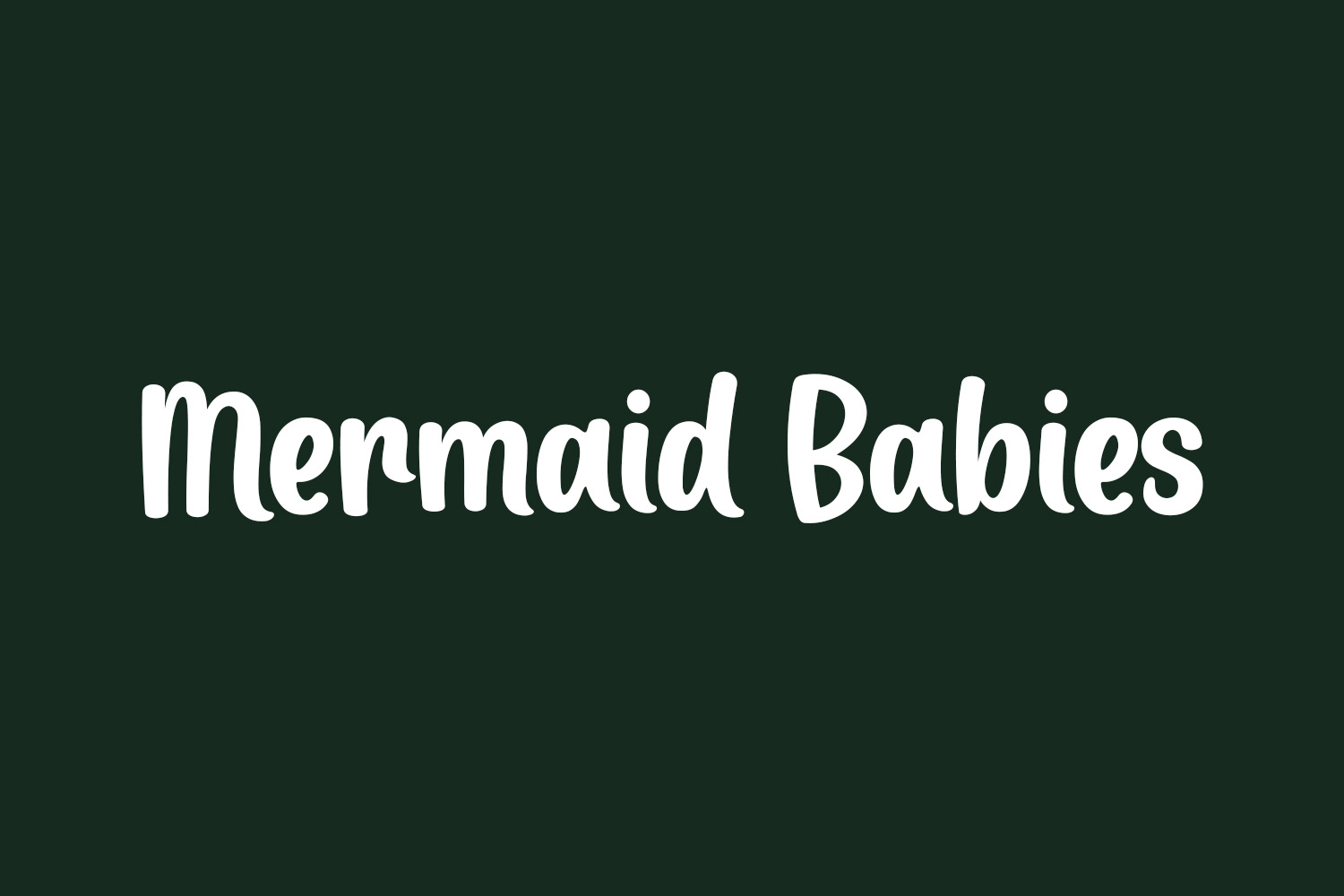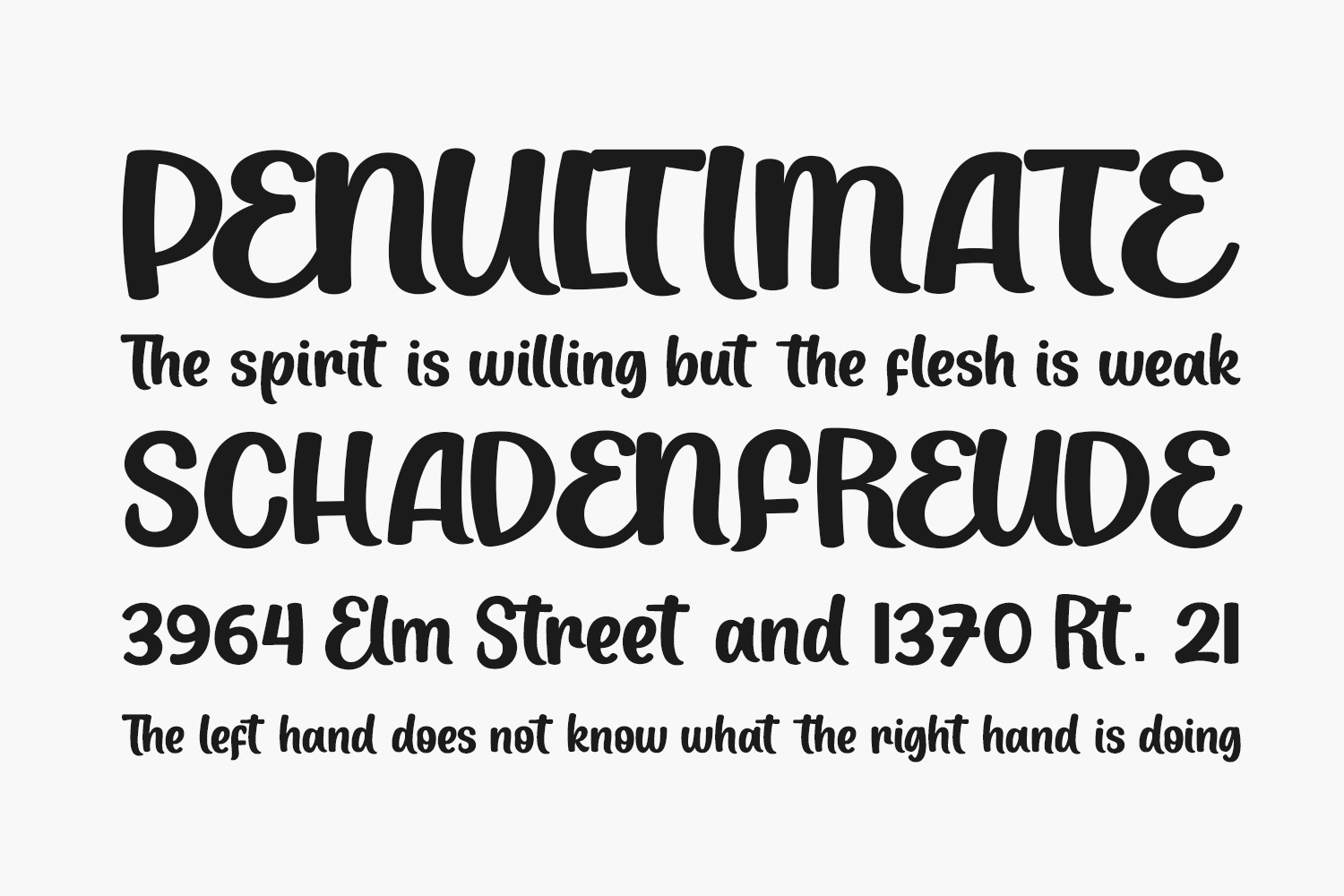
Mermaid Babies Free Font is a cute display font. It embodies playfulness and authenticity and is the perfect choice for any children’s activity or school project. Mermaid Babies Free Font was designed by Subectype & Orenari and is free for personal use only. Please purchase the full version for commercial use.